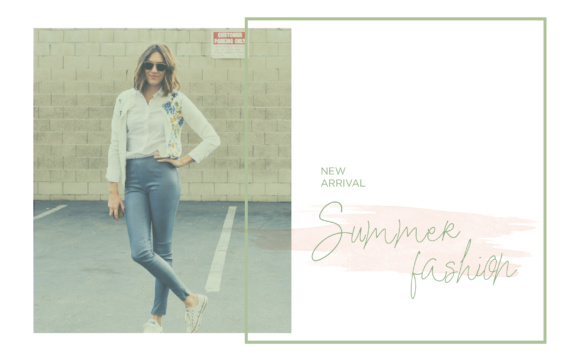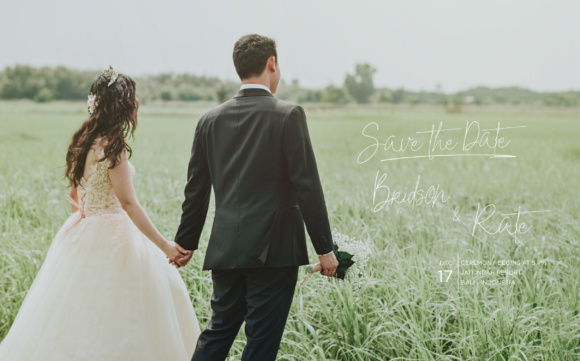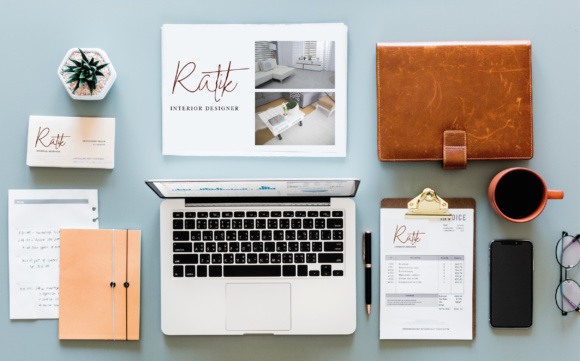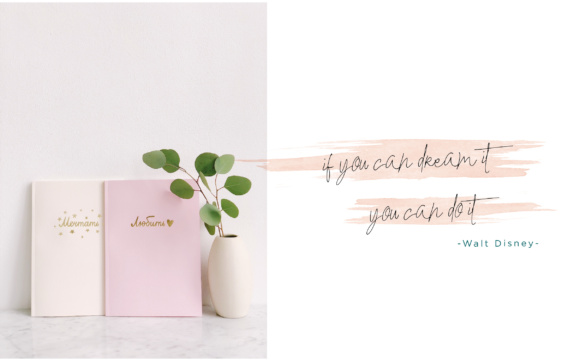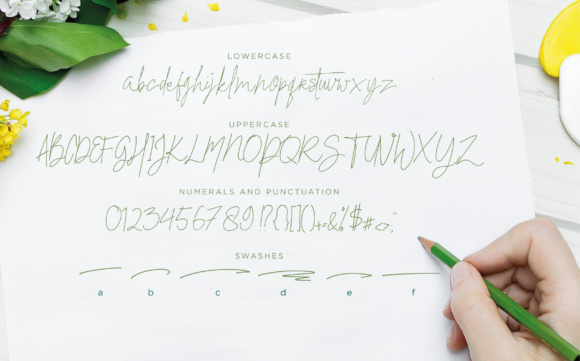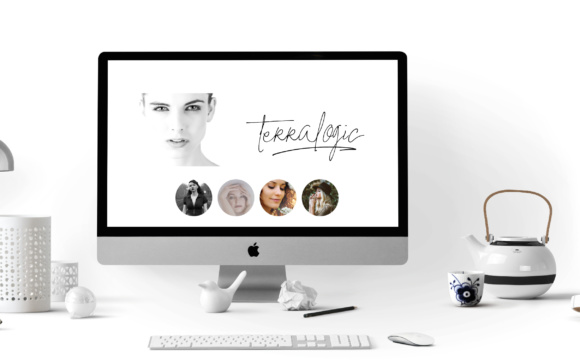
Britson Font
About Britson Font
Britson is a fun, relaxed font that has a summery appeal. This bright signature font works well in a wide range of styles, and can be used in fashion and editorial work.